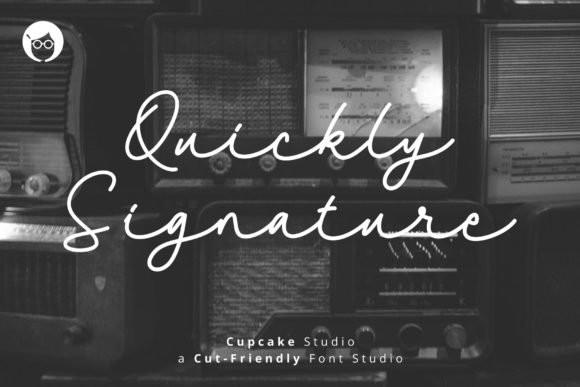
The Magic of Handwritten Fonts: Introducing AL Quickly Signature Font
Have you ever sat down with a pen and paper, and let your imagination run wild as you created a beautiful, handwritten signature? For many designers, this is a moment of pure creative joy – a chance to let their personality shine through in a single, elegant stroke. But what if you could capture that same magic in a digital format, and use it to elevate your designs to new heights?
Enter the AL Quickly Signature Font, a stunning handwritten font that combines timeless elegance with authentic calligraphy. With its classic style and friendly feel, this font is the perfect choice for designers looking to add a touch of sophistication to their work. Whether you’re creating a logo, a business card, or a special invitation, the AL Quickly Signature Font is sure to impress.
What sets this font apart is its unique ability to add a personal touch to your designs, while still maintaining a level of professionalism that’s hard to match. With the AL Quickly Signature Font, you’ll be able to create original and outstanding designs that truly stand out from the crowd.
AL Quickly Signature Font Key Features
- Font Style: Cursive Script, designed to mimic a handwritten signature
- Unique Characteristics: Includes customizable ligatures and swashes, allowing for creative expression and personalization
- Language Support: Supports multiple languages, including Latin, Cyrillic, and Greek scripts
Designer Review: AL Quickly Signature Font
Overall, I found the AL Quickly Signature Font to be a decent choice for projects where a unique, handwritten feel is desired. ✨ Here are some aspects where it excels:
- Unique Character**: The font’s cursive script is quite distinctive and can help a project stand out.
- Legibility**: Despite its handwritten nature, the font is relatively easy to read, especially at larger font sizes.
- Flexibility**: AL Quickly Signature Font comes in a range of weights, from light to bold, making it suitable for various design applications.
However, I encountered some limitations that might make it less ideal for certain projects:
- Limited Versatility**: The font’s aesthetic may not be suitable for more formal or professional projects, as it has a somewhat casual, handwritten feel.
- Letter Spacing**: At smaller font sizes, the letter spacing can become inconsistent, affecting the overall readability.
- Lack of Italic**: The font does not include an italic version, which might be a drawback for designers who need to emphasize text.
Overall, the AL Quickly Signature Font is a good choice for projects where a playful, handwritten feel is desired. While it has its limitations, it can be a valuable addition to a designer’s font library.
For the best results, use AL Quickly Signature Font in conjunction with other design elements that complement its unique style. Experiment with different font sizes, colors, and arrangements to create a visually appealing signature.
AL Quickly Signature Font is ideal for use in business cards, resumes, and social media profiles. It can also be used to create a unique and memorable logo or branding element.
Q: Does AL Quickly Signature Font support ligatures and contextual alternates?
Yes, the AL Quickly Signature Font includes ligatures and contextual alternates, which can be accessed through your design software’s font features or by using the OpenType font format’s built-in features.